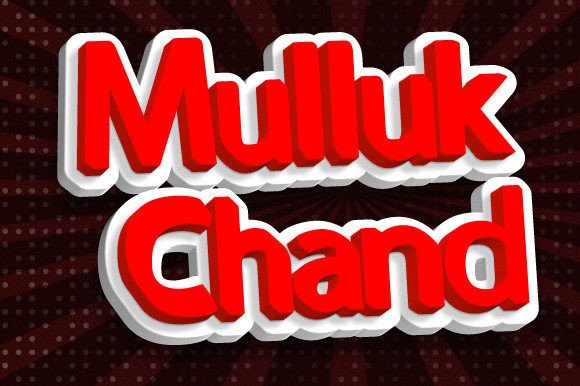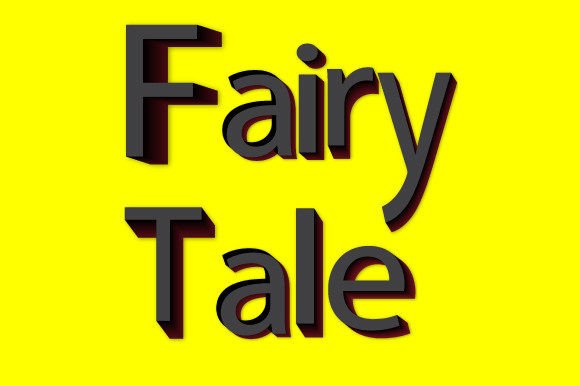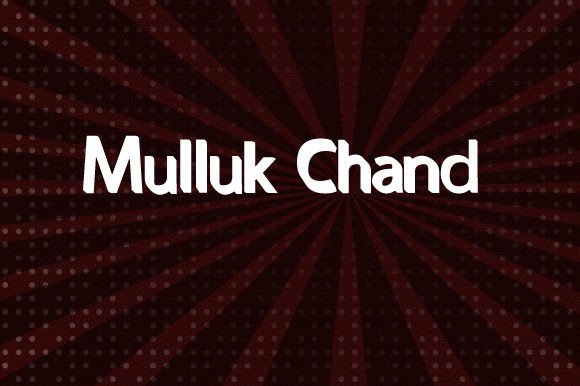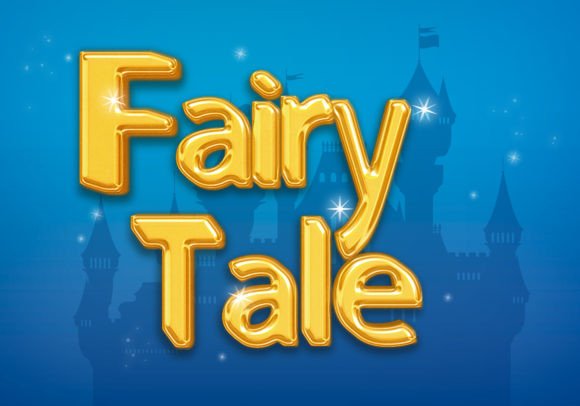
Mulluk Chand Font
About Mulluk Chand Font
Introducing Mulluk Chand, a fun and friendly handwritten font crafted to bring a delightful and versatile style to your creative projects. Whether you’re working on posters, quotes, merchandise, logos, product packaging, brochures, social media graphics, or any design endeavor, Mulluk Chand is designed to make your designs spectacular.
The fun and friendly nature of Mulluk Chand adds a playful touch to your text, making it suitable for a wide range of applications. Its versatility allows it to adapt seamlessly to different design contexts, ensuring that it can bring a lively and engaging feel to your projects.
Consider using Mulluk Chand to infuse joy into your posters, add a playful element to quotes, create eye-catching merchandise, design memorable logos, enhance product packaging, or make your social media graphics more vibrant. The font’s versatility makes it a go-to choice for various creative applications.
In essence, Mulluk Chand is more than just a font; it’s a creative tool designed to bring a fun and friendly flair to your designs. Let it be the go-to choice for your spectacular creations, allowing you to infuse your projects with the playful and versatile style that Mulluk Chand offers.